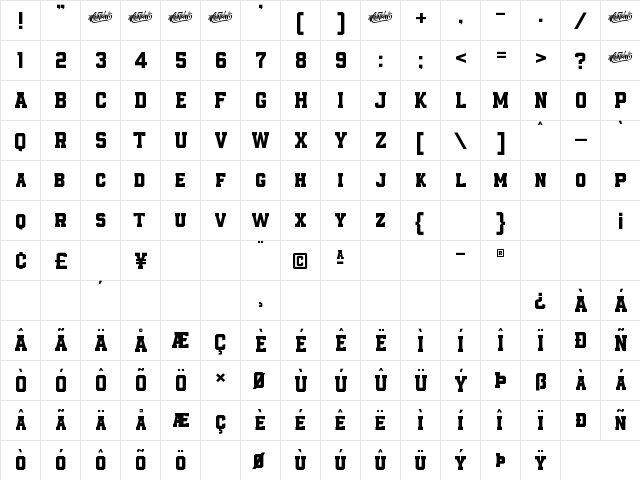
Empirez Regular
Design Context for Empirez Typeface
Empirez takes a measured approach to typography — its balanced proportions and neutral character make it a reliable workhorse for both digital and print work.